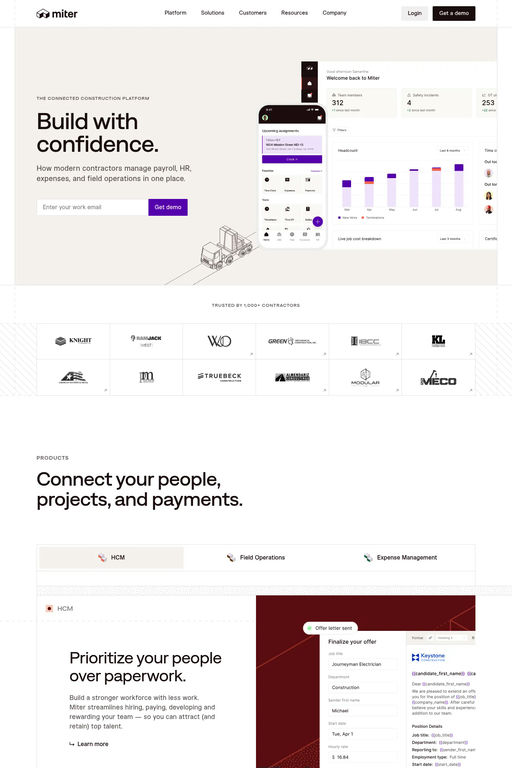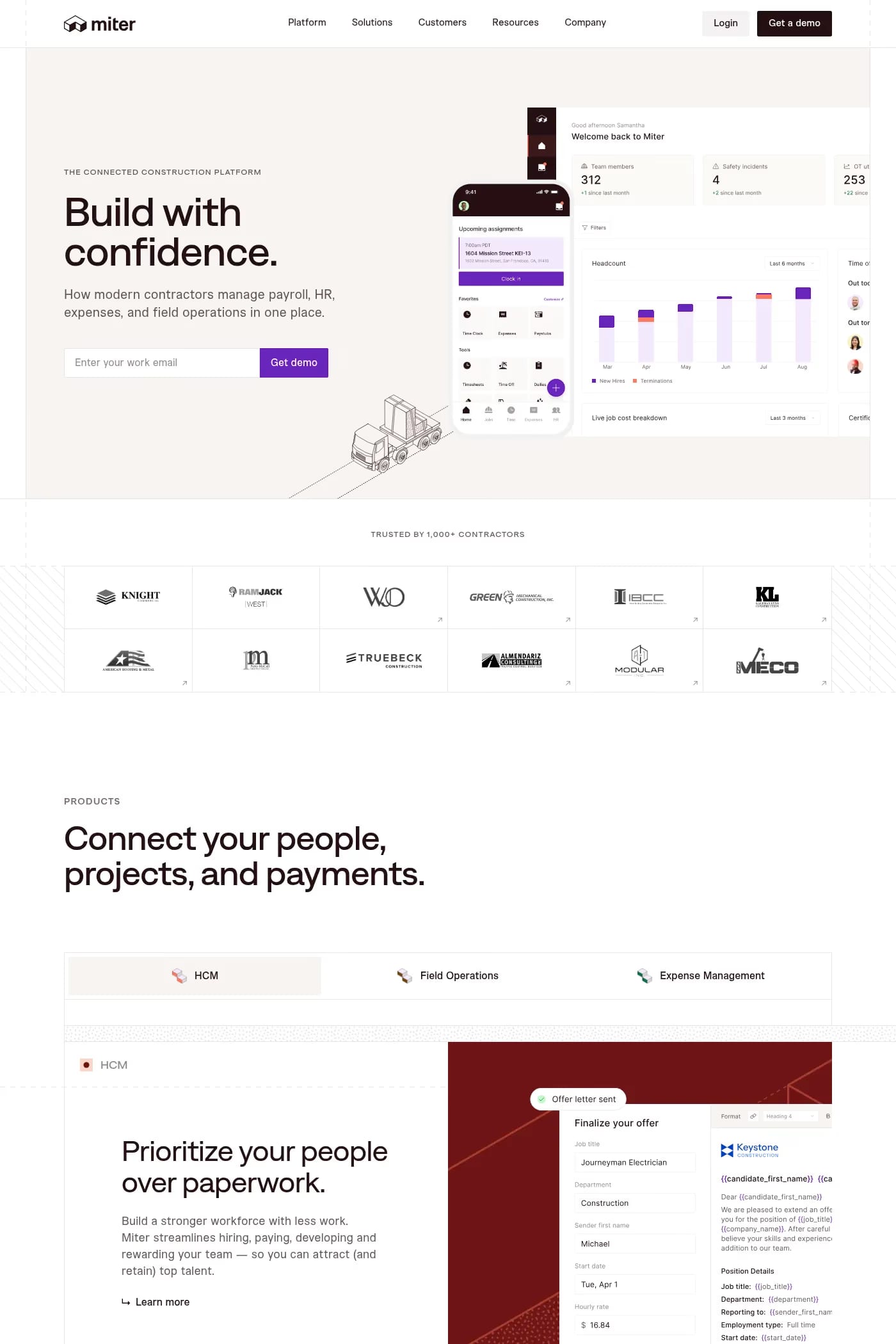
Robin is a sans-serif typeface from 205TF.
This dingbats typeface responds efficiently to what a lot of designers seek: choose a series of arrows that adapt themselves precisely to any character that has previously been retained. Up to now this kind of typeface has not been enough and has rapidly revealed itself to be insufficient: the number of arrows proposed is ultimately quite limited.